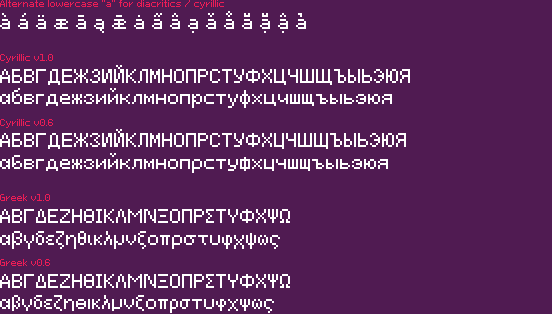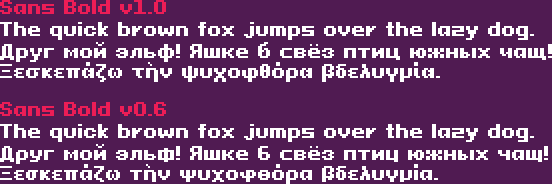
Version 1.0
This marks the final update for Pixeloid Sans font version 1. A version 2 is scheduled for release in 2026, which will include a different grid size and expanded support for a broader array of writing systems.
Changes:
- Added an alternate lowercase "a" for diacritics via OpenType features.
- Cyrillic and Greek improved — glyph changes: Pixeloid Sans 87, Pixeloid Sans Bold 93, Pixeloid Mono 40.